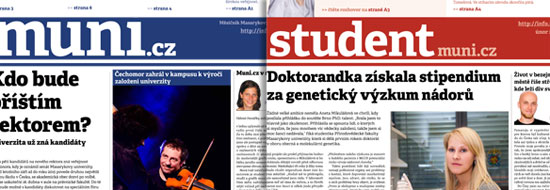
Muni.cz is a monthly newspaper published by the Masaryk University, the second largest university in the Czech Republic. It informs about current events at the university, science and research, student life and academic sports. It also features interviews with prominent personalities and interesting university graduates.
Petr Hrnčíř, responsible for the redesign of Muni, chose three of our typefaces, Adelle, Skolar and LFT Etica. He says: "The aim was to create a modern and transparent journal (given the relatively conservative academic public). The core content of the project was divided into three main sections - news, university and student, which are differentiated by using three basic colors. The rubric 'Students' was actually split into a separate issue. The typeface Adelle was chosen as a unique and distinctive slab serif, which is easily readable, new and interesting. LFT Etica is used as additional font mainly for labels and pull-out quotes, often set in floating columns to lighten up the design and to prevent high empty vertical spaces."
Due to personal preferences the client decided to adapt the letter 'a' in Adelle and change the out-stroke to a serif similar as in 'c'.